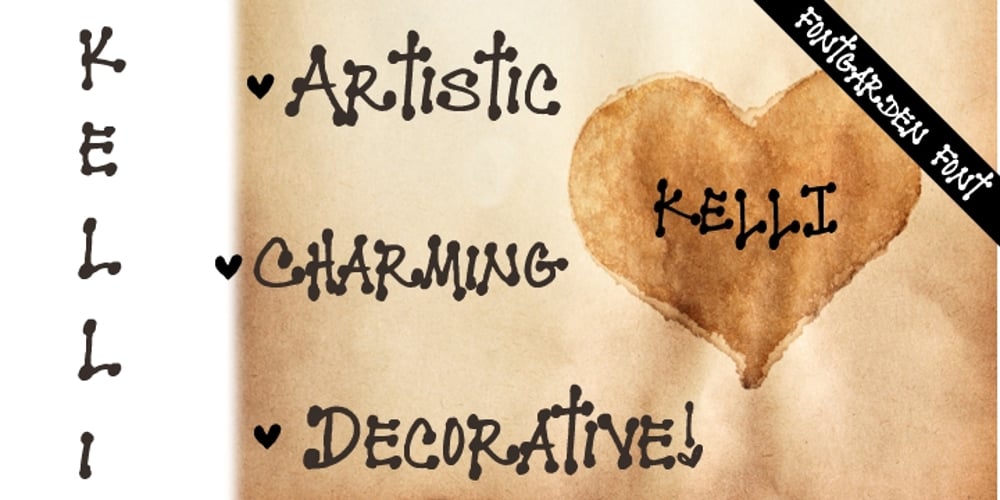
FG Kelli Font Family was designed by published by YOFF. FG Kelli contains 2 styles and family package options. FG Kelli is a highly decorative font. It shouldn’t be used for blocktext, but Kelli will be perfect for lables, greeting cards, headers and logos. Fantastic font!